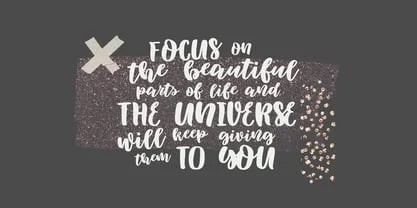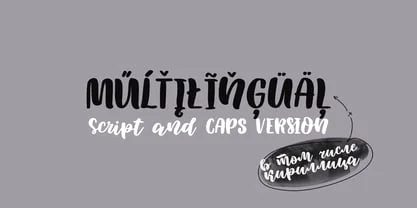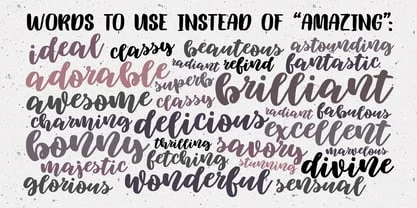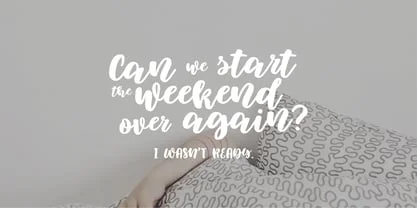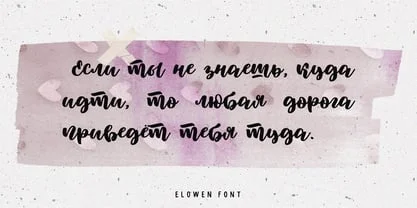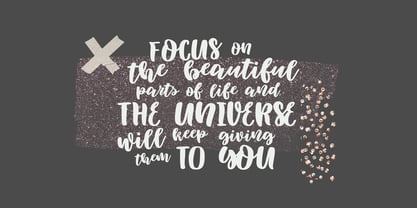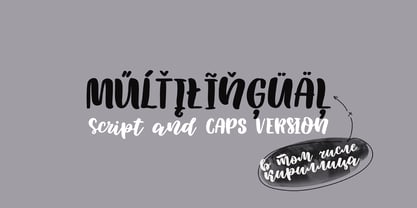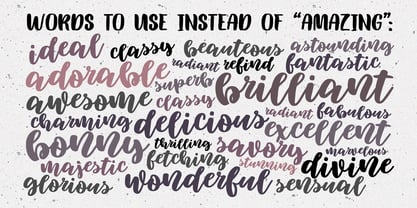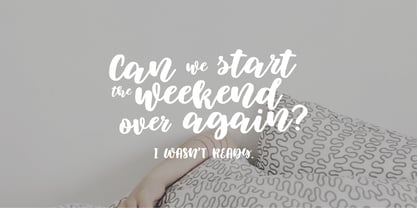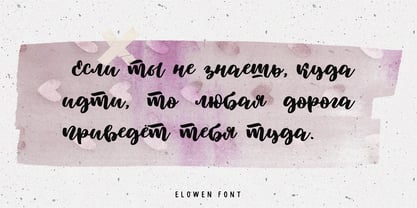
Elowen Font
This font is ideal for wedding invitations, branding, logos, social media posts, packaging, and editorial layouts. Its elegant curves and refined lines make it perfect for projects that require a sophisticated, artistic touch.
What makes Elowen Font exciting is its delicate, flowing style that balances beauty with readability. It adds a sense of charm and personality to any design, making text feel both stylish and approachable.
The font family of Elowen includes styles such as Regular, Italic, Bold, and Light, giving designers the flexibility to create visual hierarchy and contrast within their work.
Overall, Elowen Font is a must-have for designers aiming to add elegance and creativity to their projects. From romantic invitations to professional branding, this font brings a unique, memorable flair to every design.